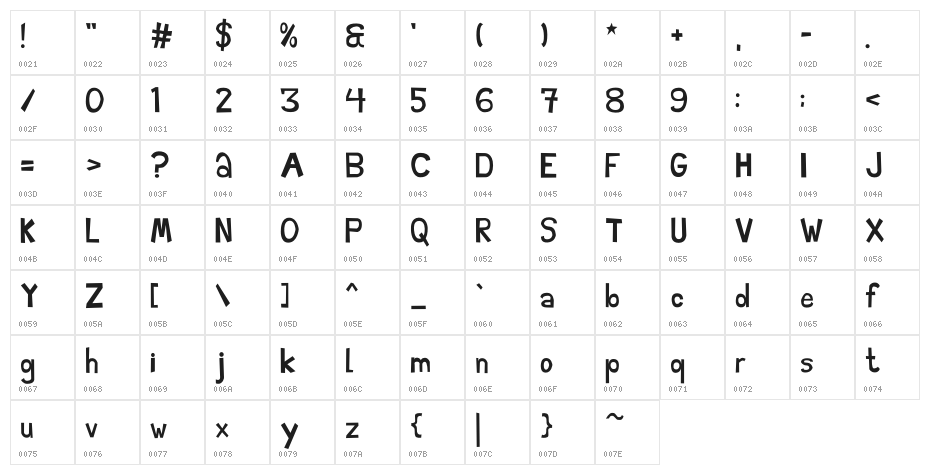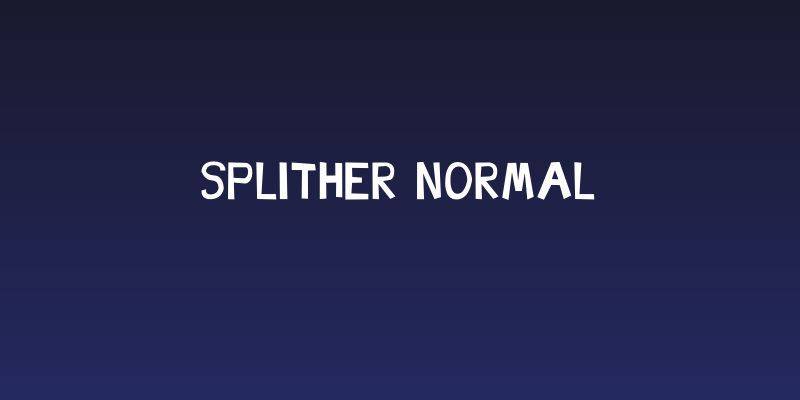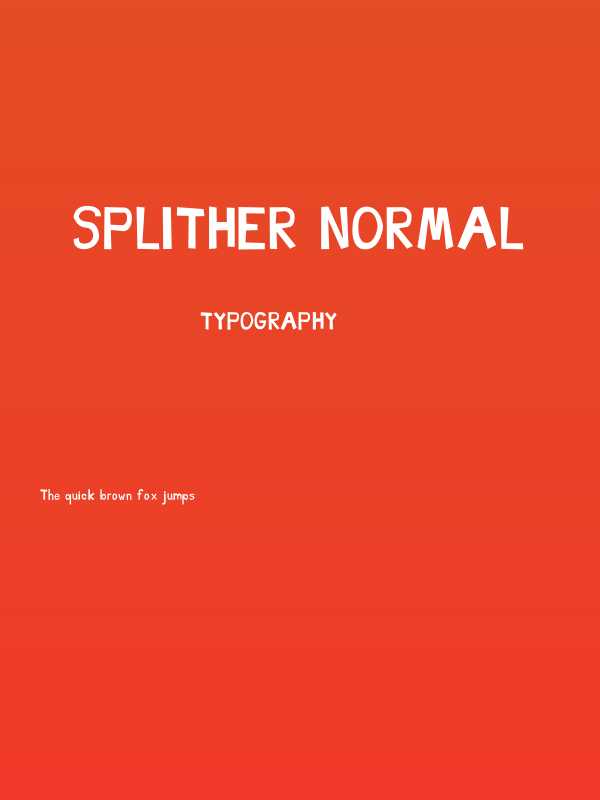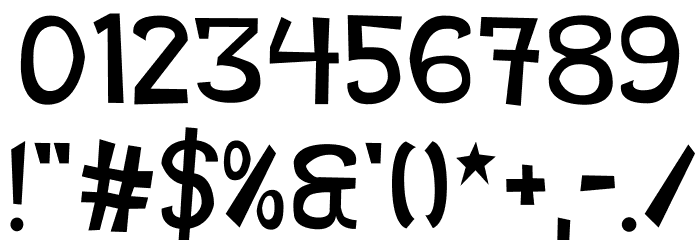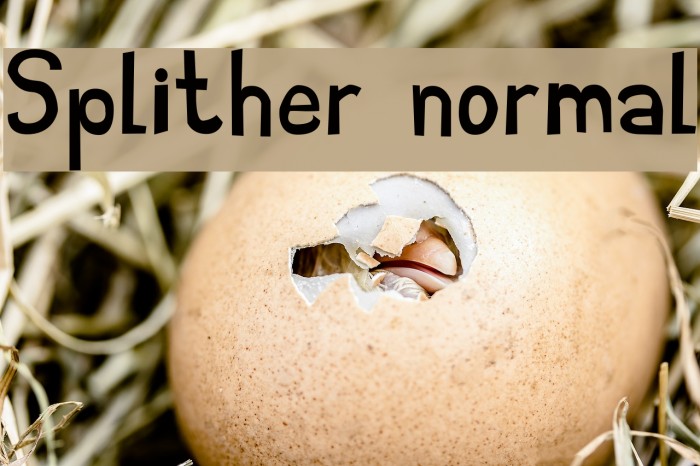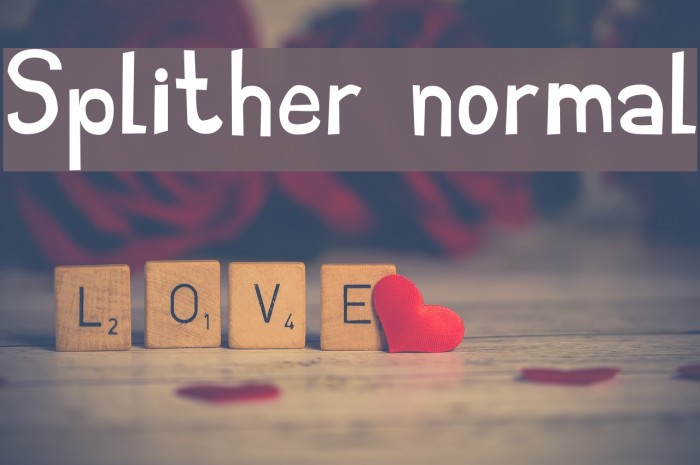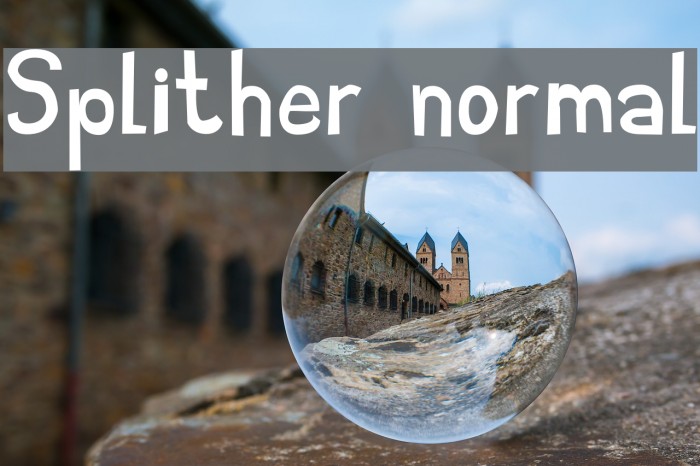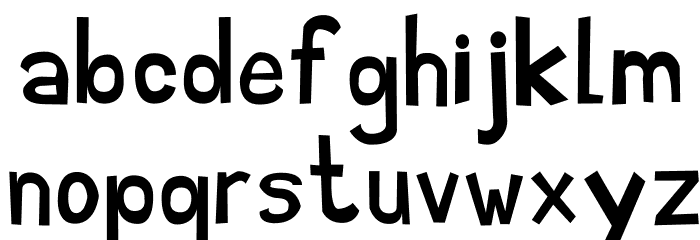
Splither normal Font
Splither normal Description
This font features a playful and quirky design with irregular shapes and a hand-drawn aesthetic. The letters have a casual, informal appearance, with varying stroke widths that add to its whimsical charm. The uppercase and lowercase letters maintain a consistent style, with rounded edges and a slightly uneven baseline, giving it a dynamic and lively feel. The numerals and special characters follow the same playful theme, making it suitable for creative and fun projects. Its unique style makes it stand out, perfect for capturing attention and conveying a sense of creativity.
SPLITHER-NORMAL UPPERCASE
SPLITHER-NORMAL LOWERCASE
SPLITHER-NORMAL OTHER CHARS
| Proposed Projects | Ideal for children's books, playful branding, creative posters, and informal invitations. |